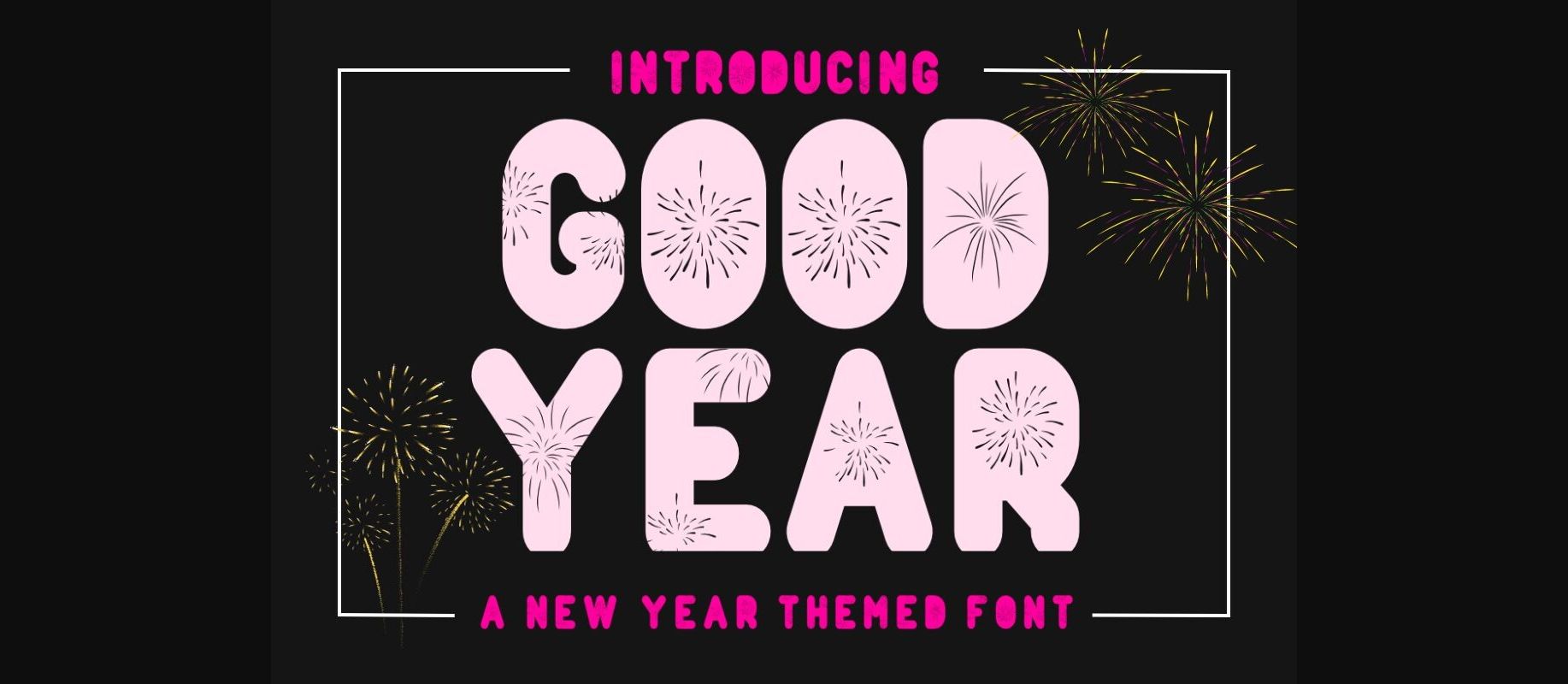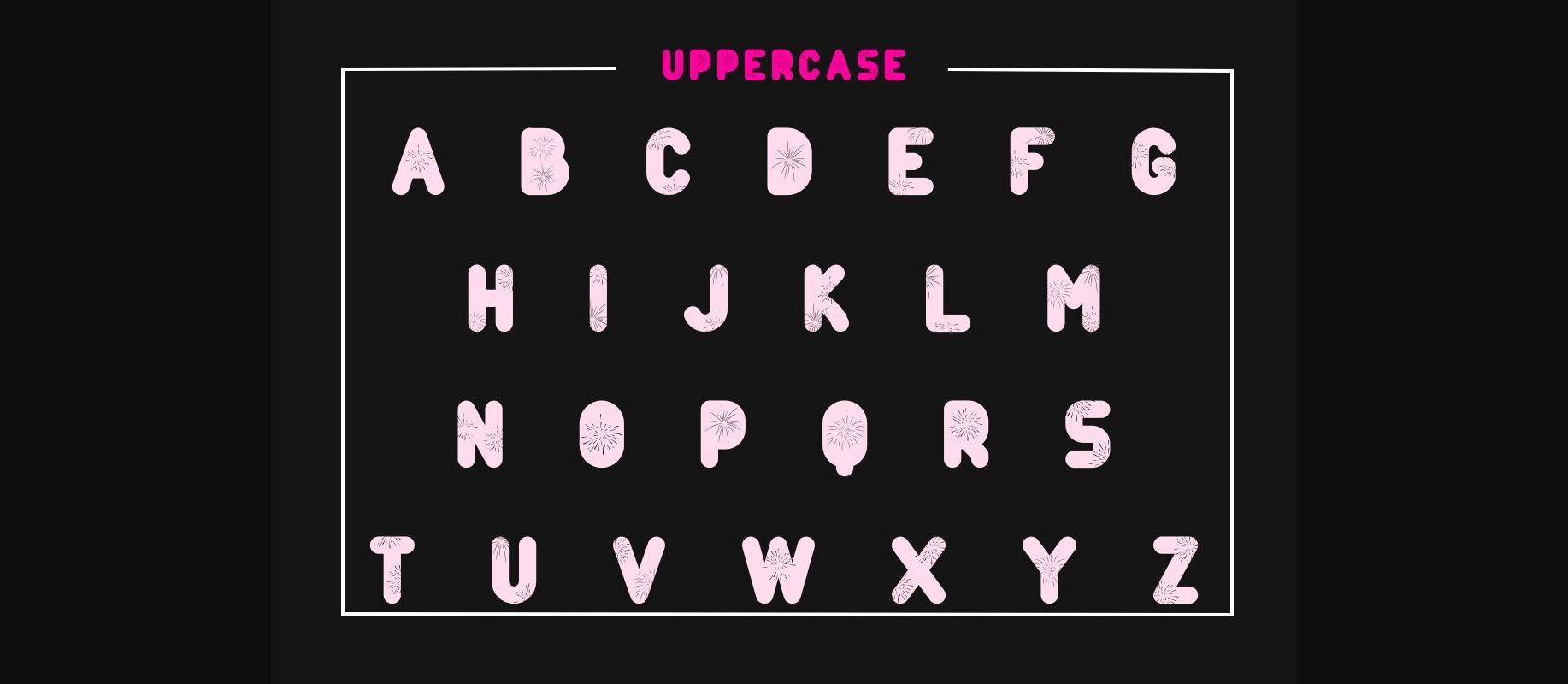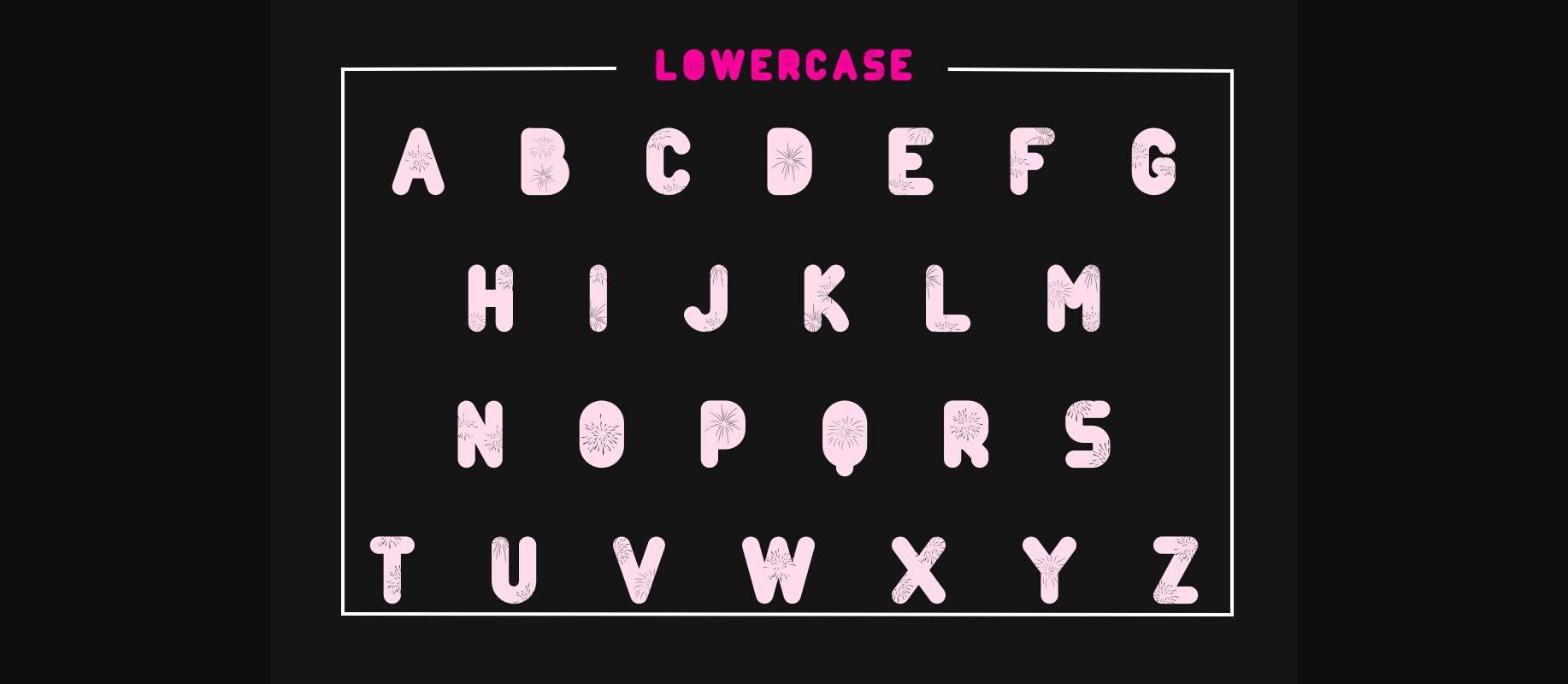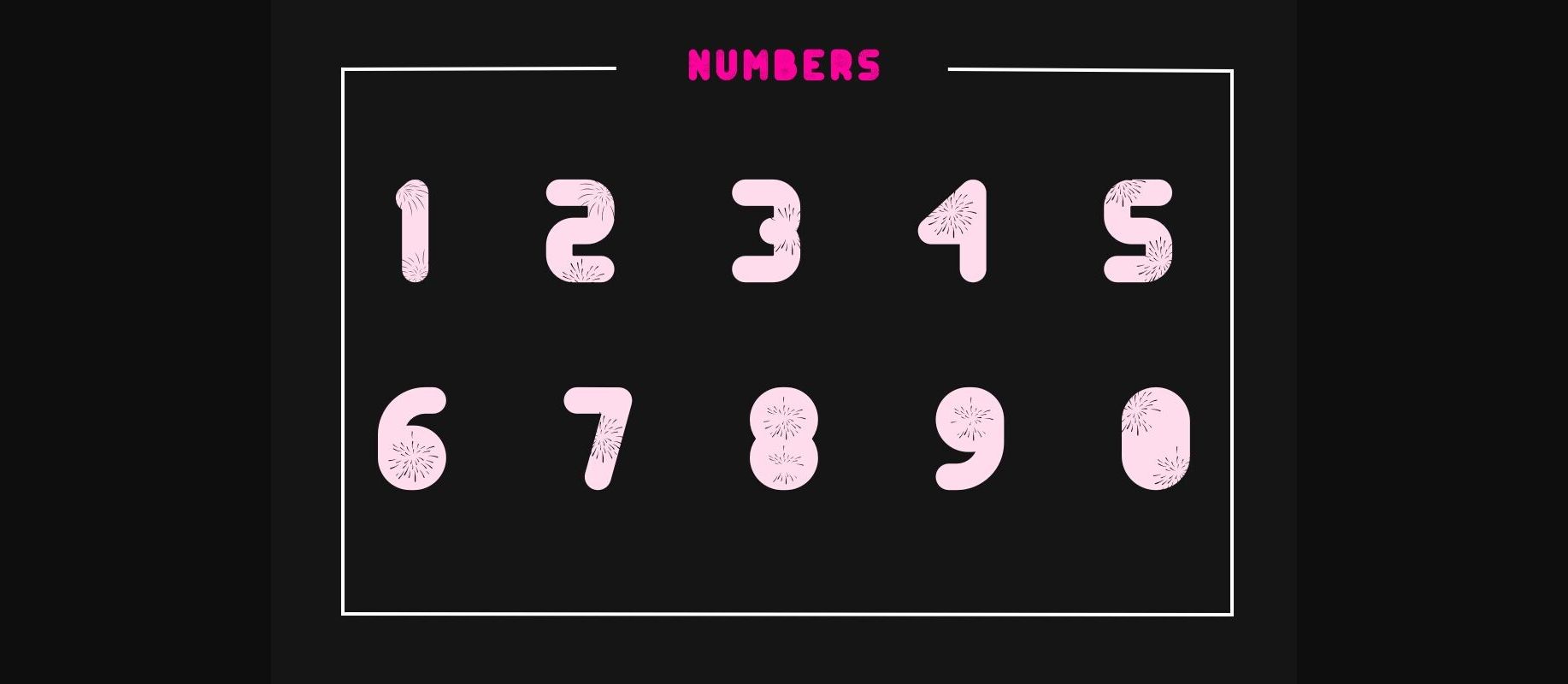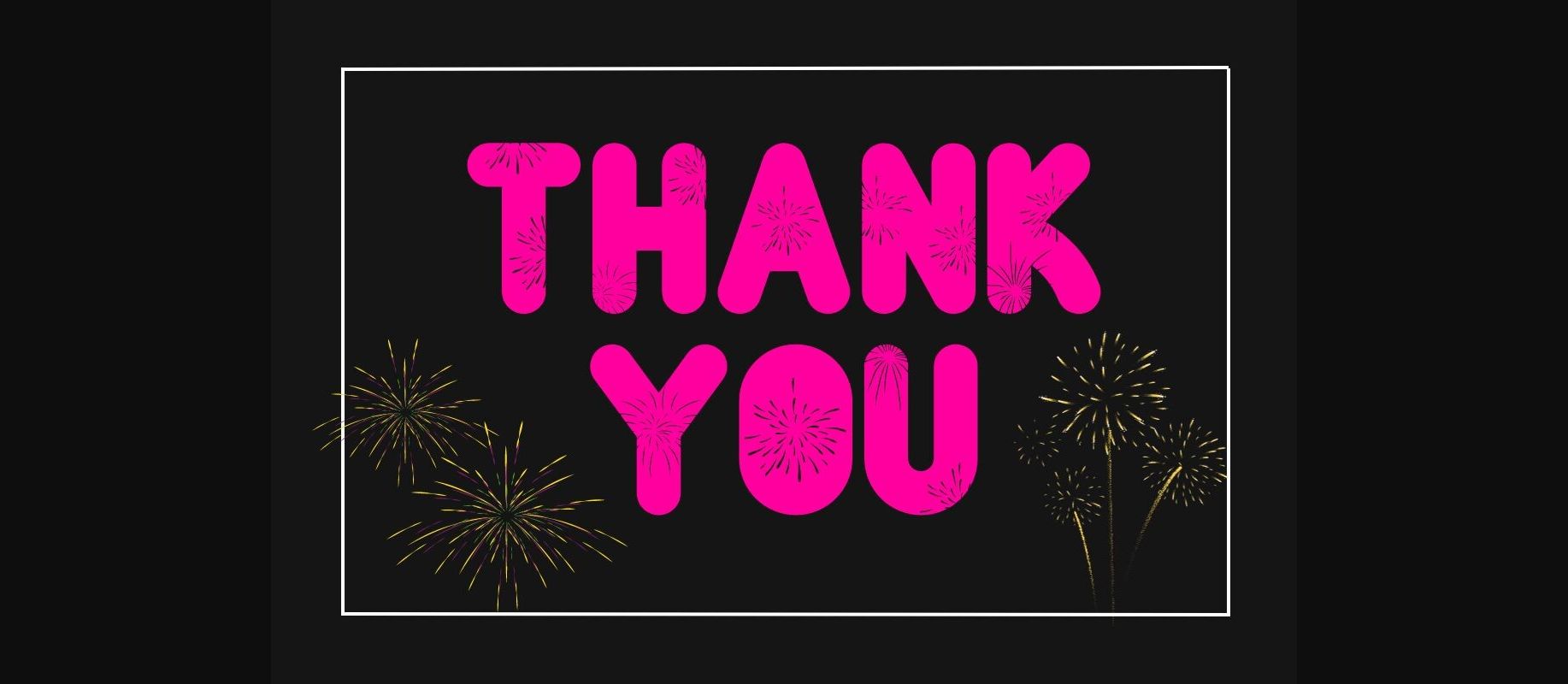
Good Year Font
About Good Year Font
Good Year is a decorative font with a New Year theme with fireworks decoration. Suitable for invitations, making scrapbooks, stickers, vinyl, paper crafts, Invitations, Decorations, T-shirts, Mugs, Art Prints, Towels, and glasses.